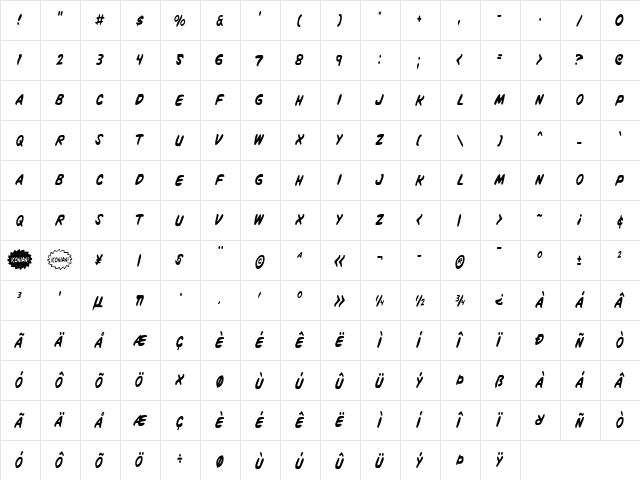
Vigilante Notes Condensed Condensed
Design Context for Vigilante Notes Condensed Typeface
Vigilante Notes Condensed takes a measured approach to typography — its balanced proportions and neutral character make it a reliable workhorse for both digital and print work. The condensed width makes it efficient for tight spaces without sacrificing legibility.